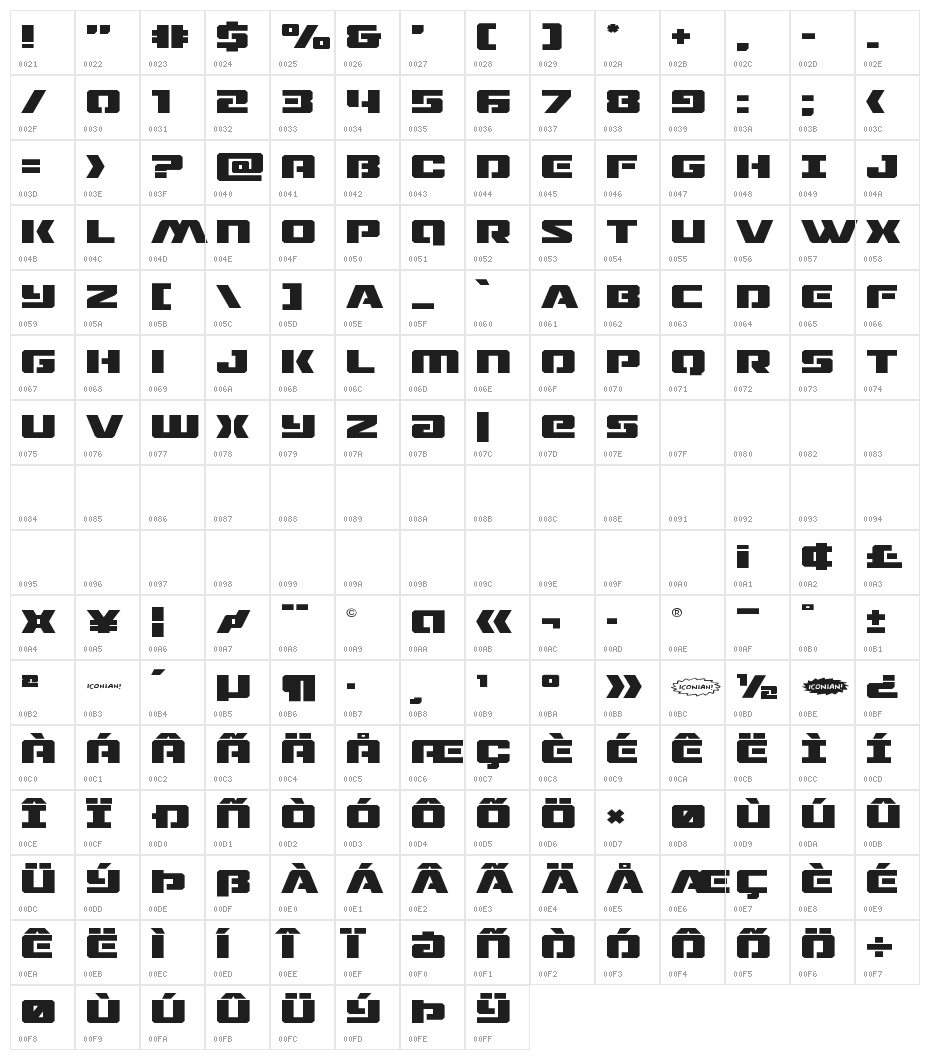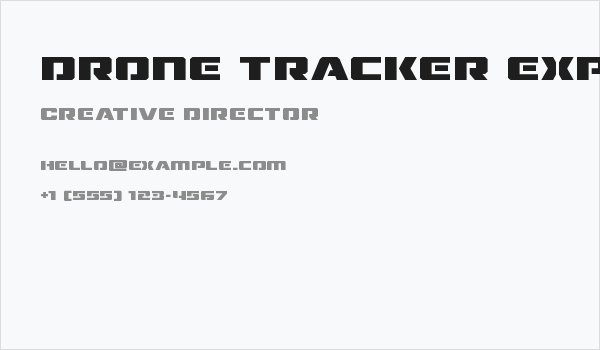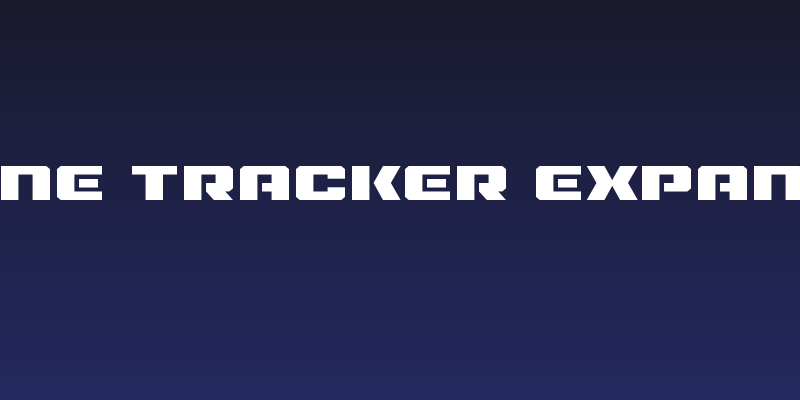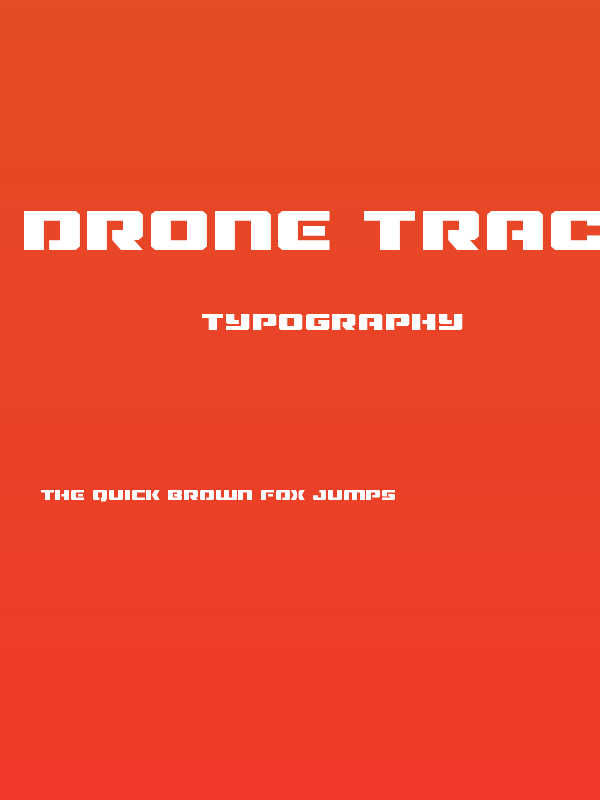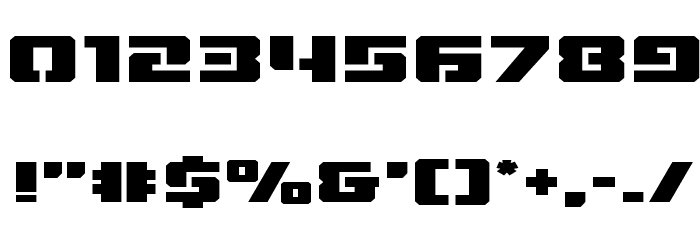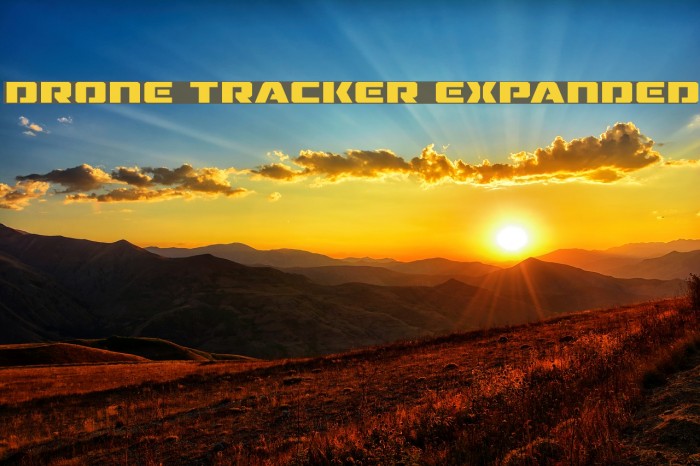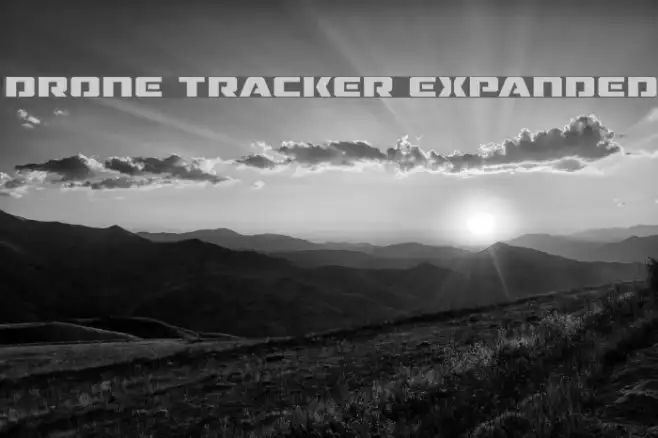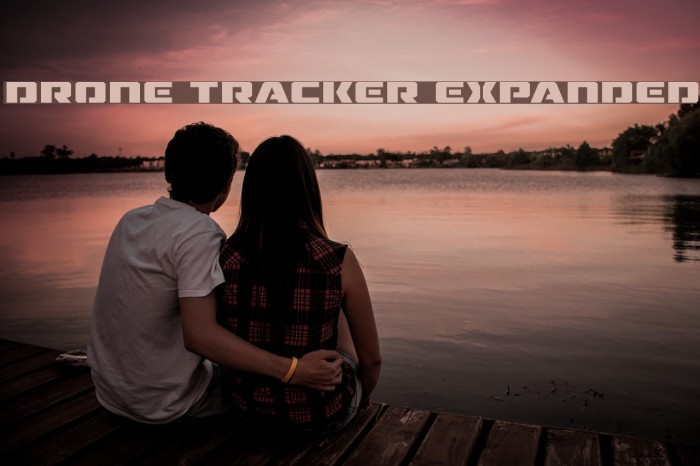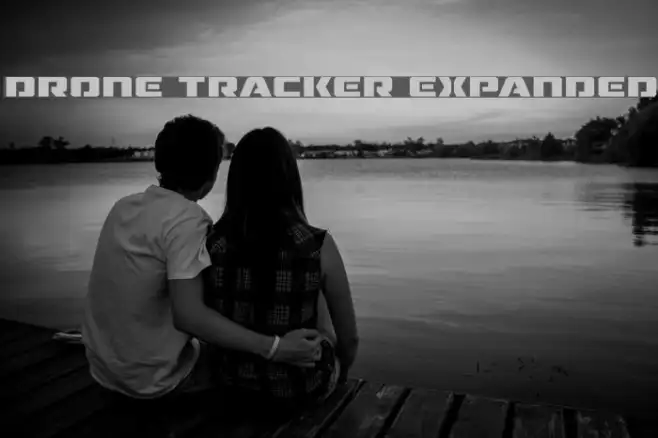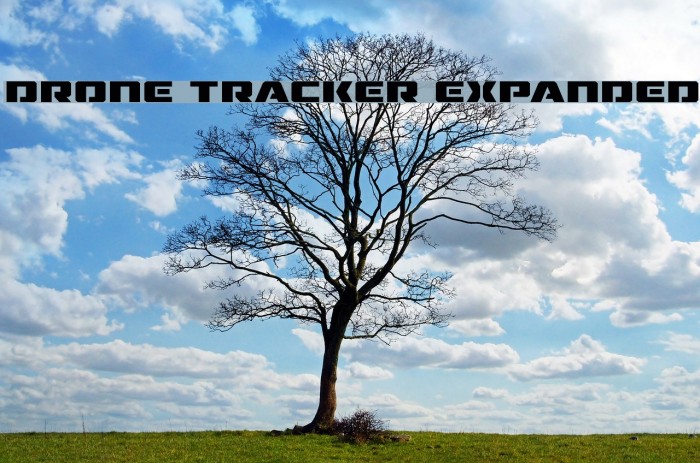
Drone Tracker Expanded Font
Drone Tracker Expanded Description
This font features a bold and futuristic design with geometric elements that create a sense of movement and modernity. The characters are constructed with sharp angles and clean lines, giving it a distinct and edgy appearance. The uppercase and lowercase letters maintain a consistent style, while the numbers and special characters are equally bold and striking. The overall look is dynamic and tech-inspired, making it suitable for projects that require a strong visual impact.
| Proposed Projects | Ideal for technology branding, video game titles, sci-fi movie posters, and modern advertising campaigns. |